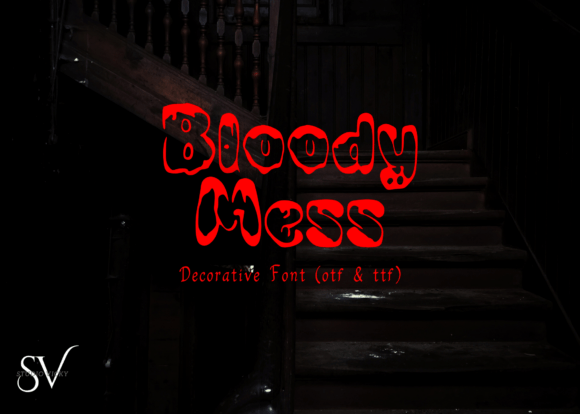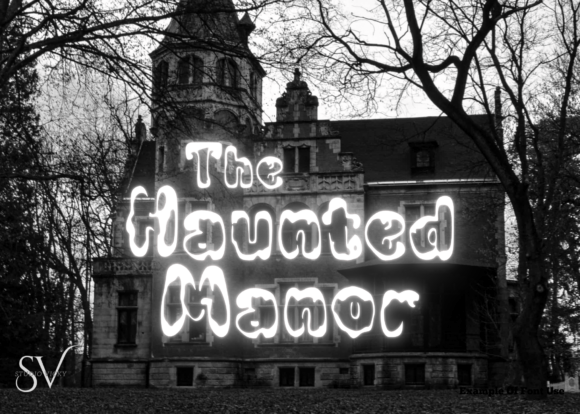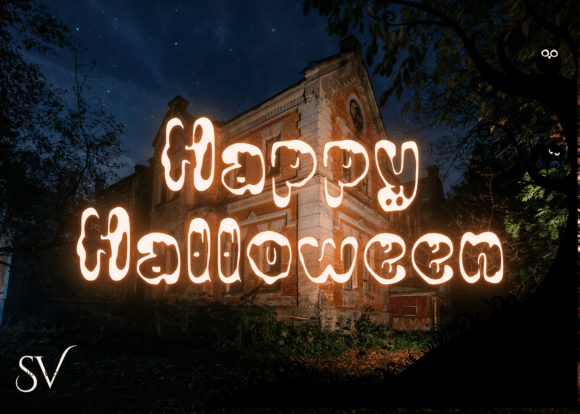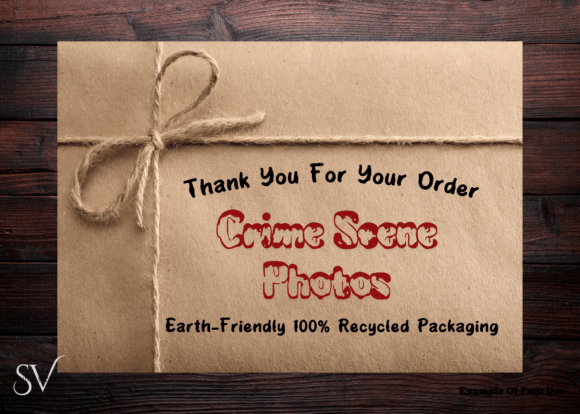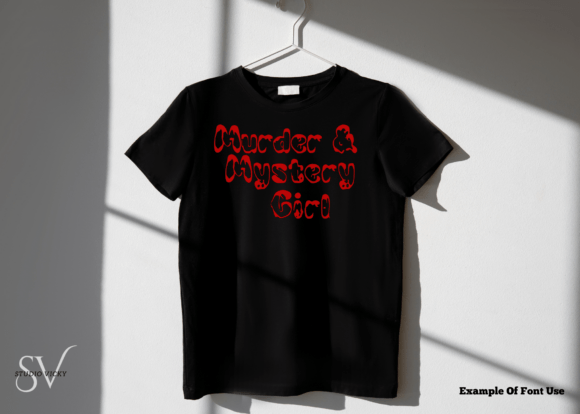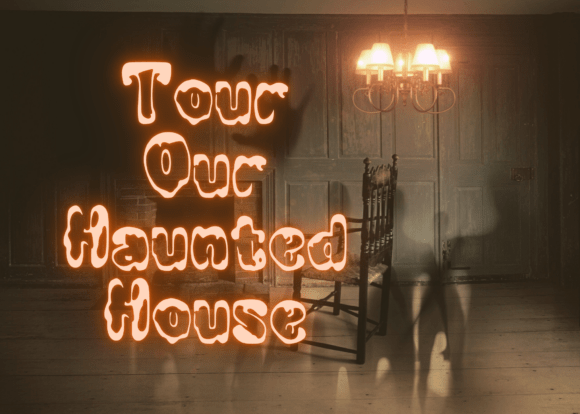
Introduction to Bloody Mess Font
Prepare to make a splash this spooky season— Bloody Mess typeface is a bold, dripping horror font that oozes with gruesome style and frightful fun.
Perfectly twisted for Halloween party flyers, horror film titles, haunted house décor, creepy crafts, or spine-chilling social posts, this font delivers pure scream-fest energy With thick, gooey drips and chaotic splatters baked into every character, Bloody Mess brings that unmistakable blood-soaked vibe to any design.